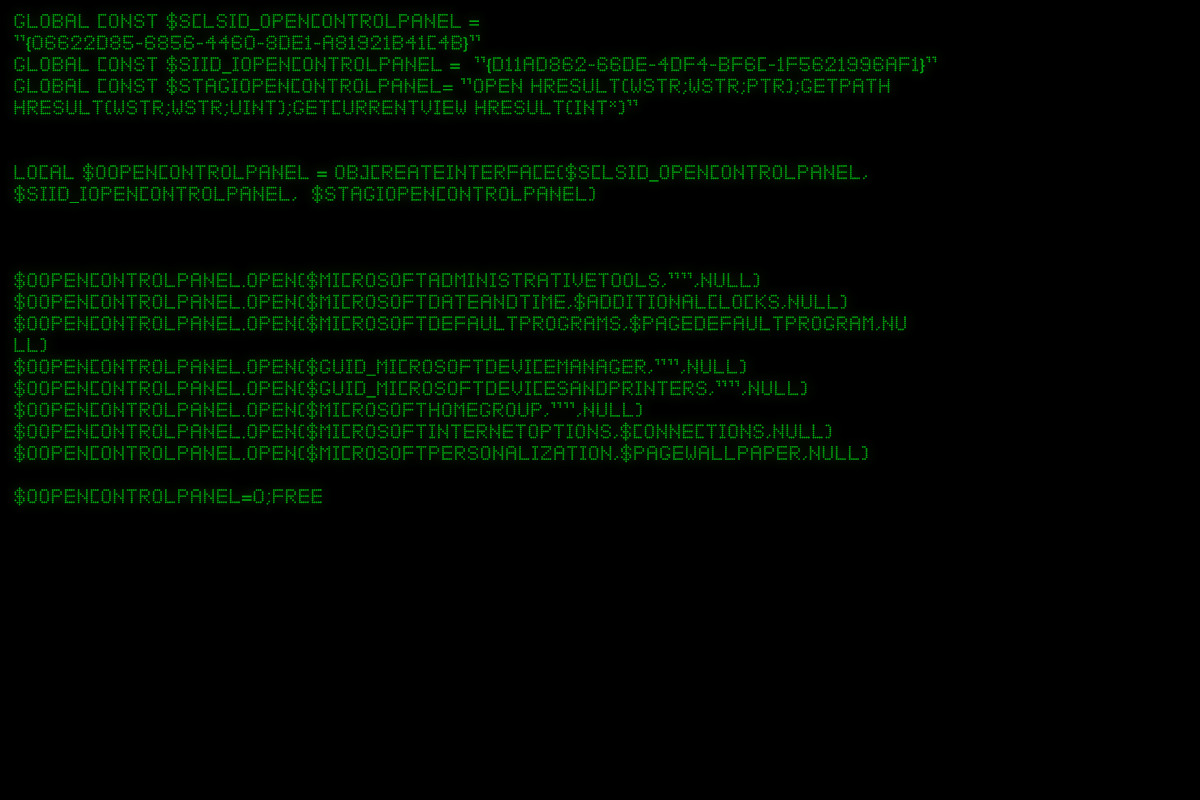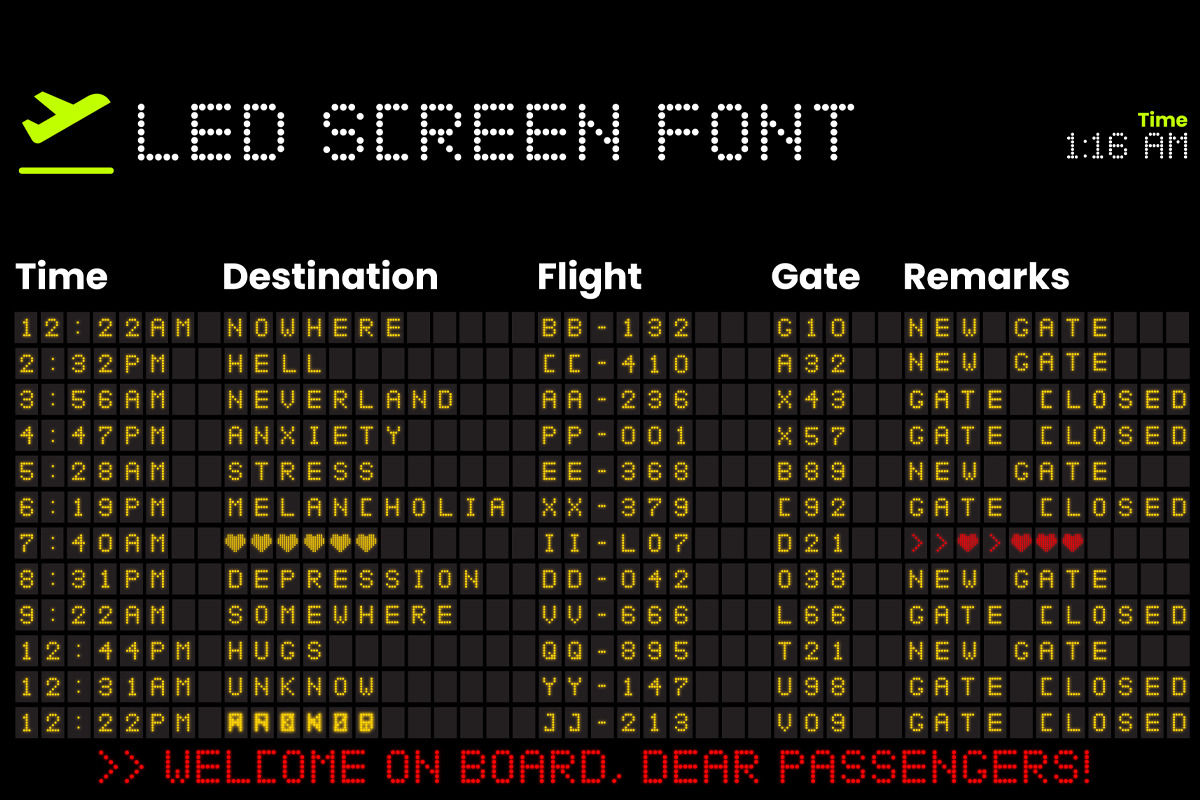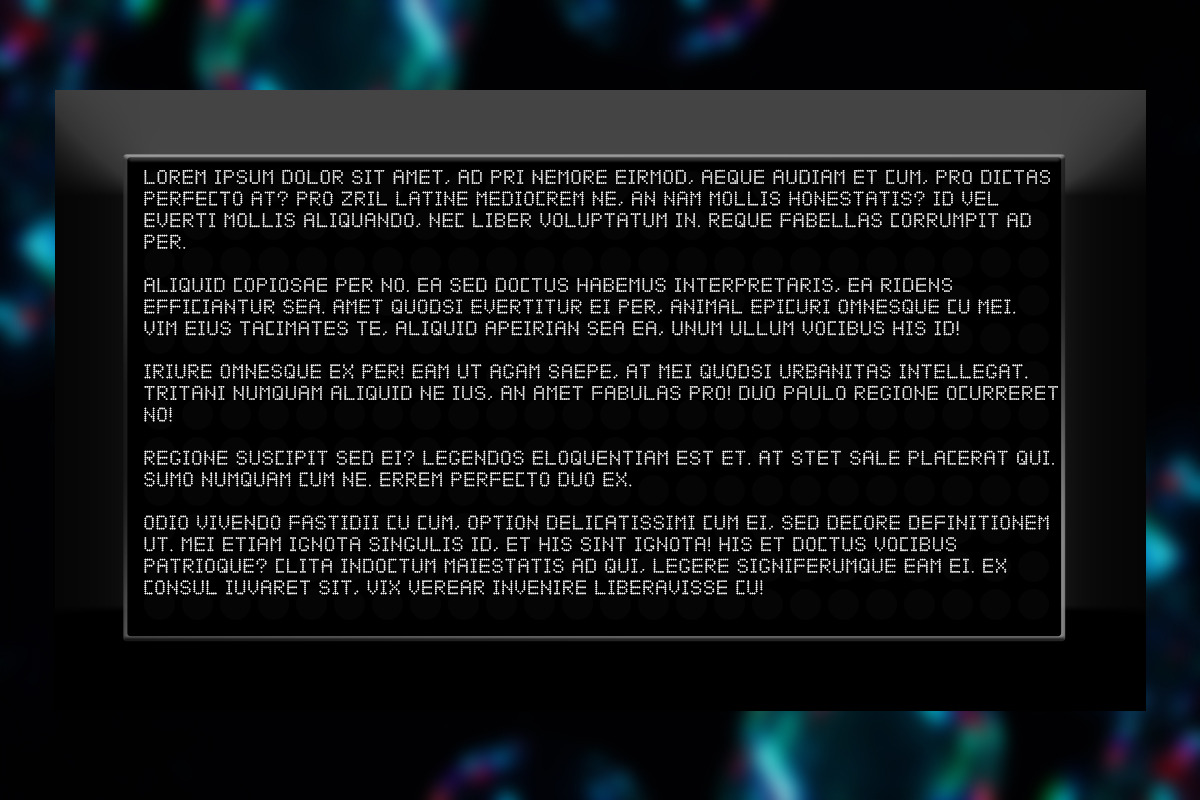
Led Screen - Typeface
Introducing Led Screen, the new font inspired by the clarity and precision of LED screens. With its sharp lines and bold appearance, Led Screen is perfect for digital displays and branding. Try it today and make a bold statement with your design work.